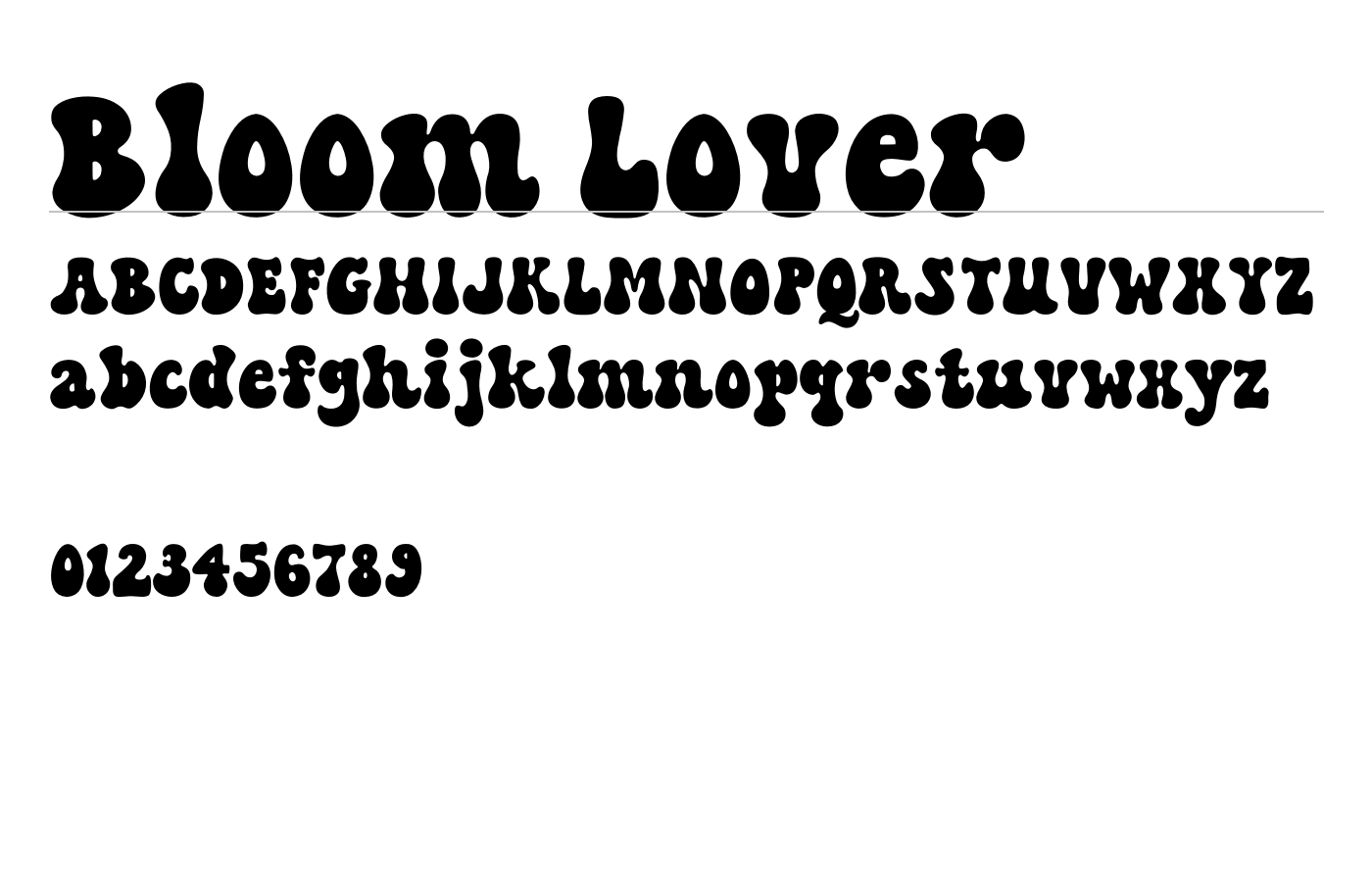
Bloom Lover is a playful, bold serif typeface with thick, rounded letterforms that evoke a fun and whimsical vibe. Its chunky style and soft curves make it perfect for eye-catching headlines, logos, and creative designs that seek a retro, friendly personality. This font works well in branding and posters where a lively, approachable feel is desired.
Bloom Lover Font
About Bloom Lover Font